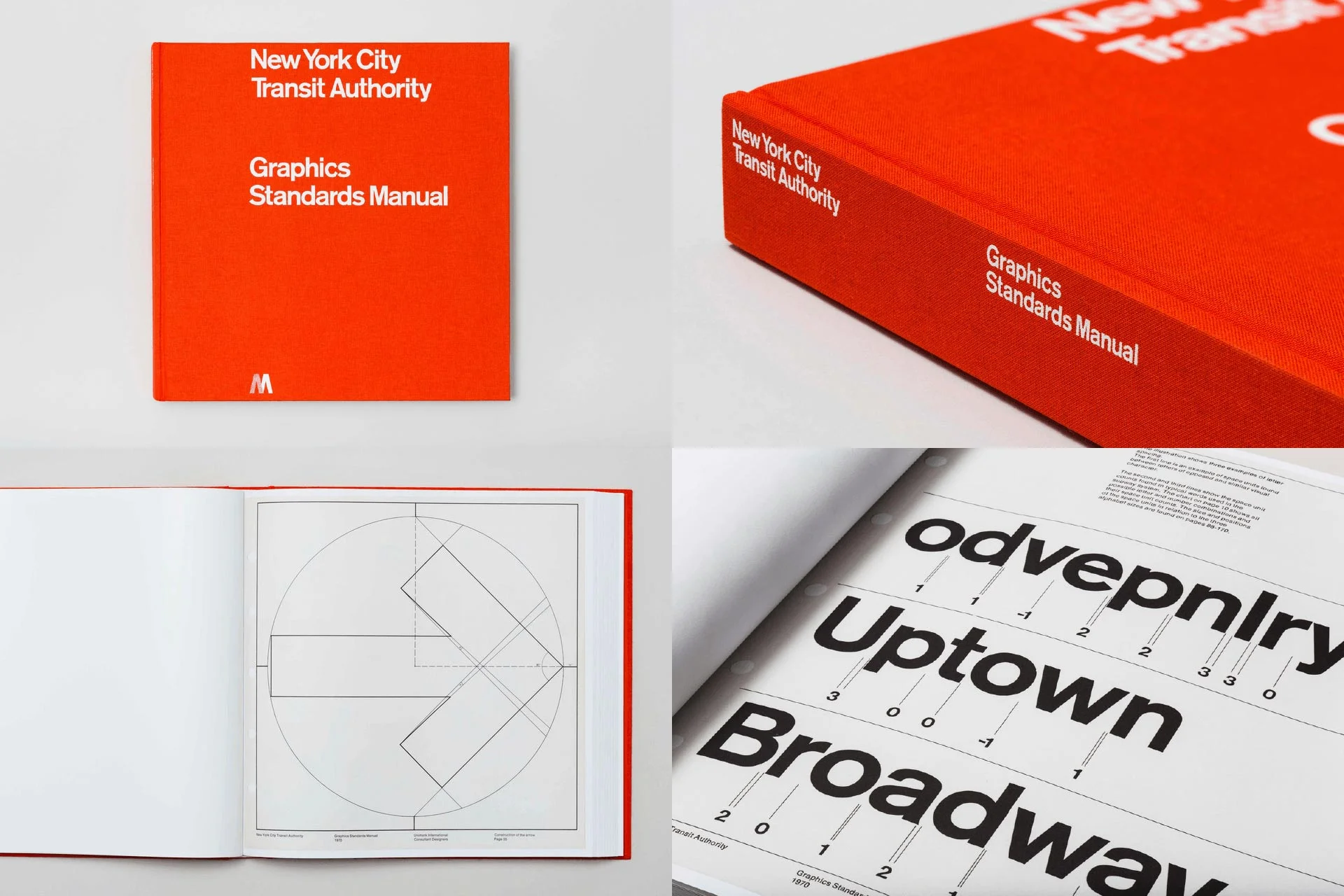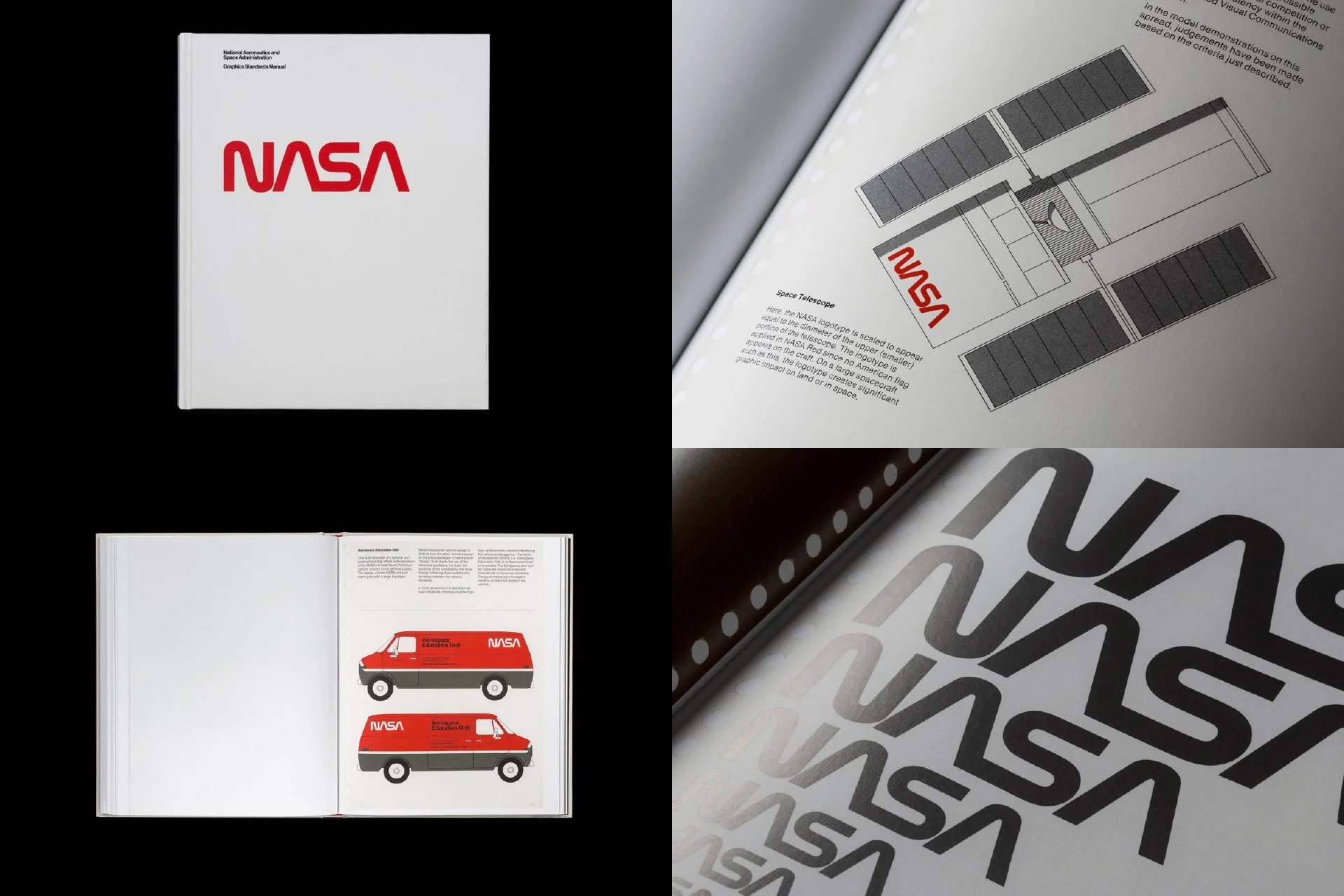
Name brands that are part of our vernacular don’t become everyday nouns and verbs by accident. Such brand organizations have a voice in our world that we resonate with.
We personally align ourselves to brands that symbolize our values, knowing they help us identify with others who share the same ideals and strengthen those connections between each other. We use brand names, logos, taglines, colors, and messages as smoke signals in a noise-filled world.
As a result, brands are not only integrated into today’s world but also our history. One way we can revisit that history is to look back to the design source materials these household names were built upon.
Standards for Integrity
Brand standards manuals are a codified set of guidelines to uphold the visual integrity of an identity system and served a very practical purpose. A brand identity is a visual system, and the corporate identity manual is the instruction book for anyone using or implementing parts of the system.
These form these manuals were produced were in printed sheets housed in three-ring binders, passed around the company to internal departments, partners, and vendors. They were company documents created to provide graphic guidance for using identity assets for a company.
Symbols of Our Past
Behind these rulebooks are statements of intent that go deeper than logos, symbols, and typographic applications. The organizations above have all made significant contributions to the fabric of American culture and identity, and design has played an integral part throughout. As we look back through the lens of these designed objects, we are also able to look forward.
In 2015, Jesse Reed and Hamish Smyth from Pentagram started Standards Manual, an independent publishing studio in New York City focused on re-issuing former brand standards manuals. They began reissuing vintage standards manuals in case-bound form to archive and preserve these symbols of design history.
Their first reissue project, the 1970 New York City Transit Authority Graphics Standards Manual designed by Massimo Vignelli and Bob Noorda, speaks to the relationship of the city, transportation, and navigation. The manual outlined the standards for the use of symbols, typography, color for implementation of wayfinding signage and communications for public transportation in New York City.
The typeface NYCTA Standard Medium was designed by Nick Shermanspecifically for the reissue. According to Standard Manual’s site, “scanned samples of the Graphics Standards Manual contained in this publication were used as the basis of the redrawing. Letter spacing, kerning, and the quirks of Standard Medium were all retained and precisely match those specified in the manual.”
Standard Manual went on to publish the 1975 National Aeronautics and Space Administration (NASA) Graphic Standards Manual designed by Richard Danne and Bruce Blackburn which brought in $941,966 in funding.
At the time, the original manual was launched with a newly customized thick-lettered “worm logo,” transitioning from their older “meatball logo,” and outlined use of the identity system for implementation on publications, uniforms, vehicles, space shuttles, and more. Because there was only 40 copies of the original manual, it became highly collectible.
With the moon landing just five years prior to publication, the manual’s introduction describes the identity as a “…new tool to enhance and symbolize the progressive path we have always followed.”
Although the original standards manual inspired the reissue, the project was not sponsored by NASA. During the Kickstarter campaign, NASA released a full PDF of the original graphic standards manual on their web site.
Their third project was issue of the 1973 Official Symbol of The American Revolution Bicentennial Official Graphics Standards Manual — the logo for America’s 200th birthday party.
The manual demonstrate the construction of the symbol and demonstrated application to certificates, vehicles, TV spots, building signage and more.
The manual’s designer, Bruce Blackburn, notes, “What an intimidating challenge… just take 200 years of history and distill them into a form that would make a good lapel pin. Not exactly a piece of cake.”
Standards Manual’s newest venture, the Environmental Protection Agency (EPA) identity, designed in 1977 by Chermayeff & Geismar is being Kickstarted in partnership with Earthjustice and AIGA.
What was originally produced as printed sheets in a three-ring binder will be reproduced as a case-bound book with a slipcase. The manual will feature the EPA logo, usage, colors, patterns and demonstrate implementation of collateral, reports and more.
There’s no denying that design has played a valuable role in giving a strong voice to the work of the EPA. To quote the ongoing Kickstarter campaign, “Like the NASA Graphics Standards Manual, the EPA manual was commissioned as a result of the National Endowment for the Arts (NEA) ‘Federal Graphics Improvement Program.’ This manual beautifully encapsulates the role design has played in advancing federal programs for public good.”